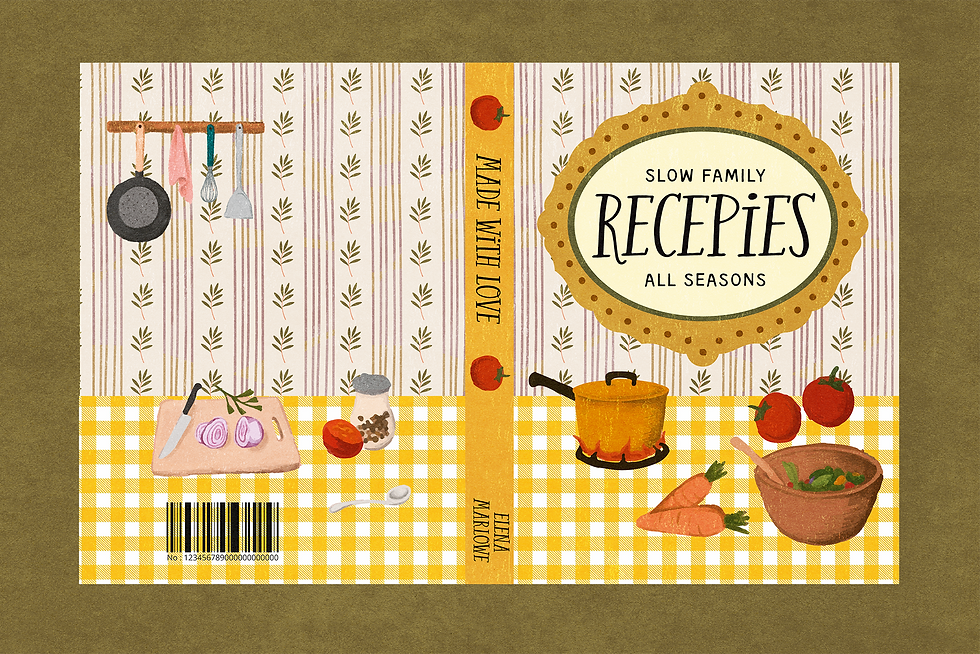
COZY LIBRARY is a tall, hand drawn and a charming serif + sans serif font duo perfect for bookish designs, reading quotes, posters, stationery, journals, branding, invitations, and cozy home decor.
Perfect for book lovers, cottage core, autumn, fall, magical, whimsical, and vintage inspired designs, while remaining versatile enough to use all year round.
⋒ Mix uppercase and lowercase letters! Since the “i, k, o, q and r” characters have different shapes and proportions.